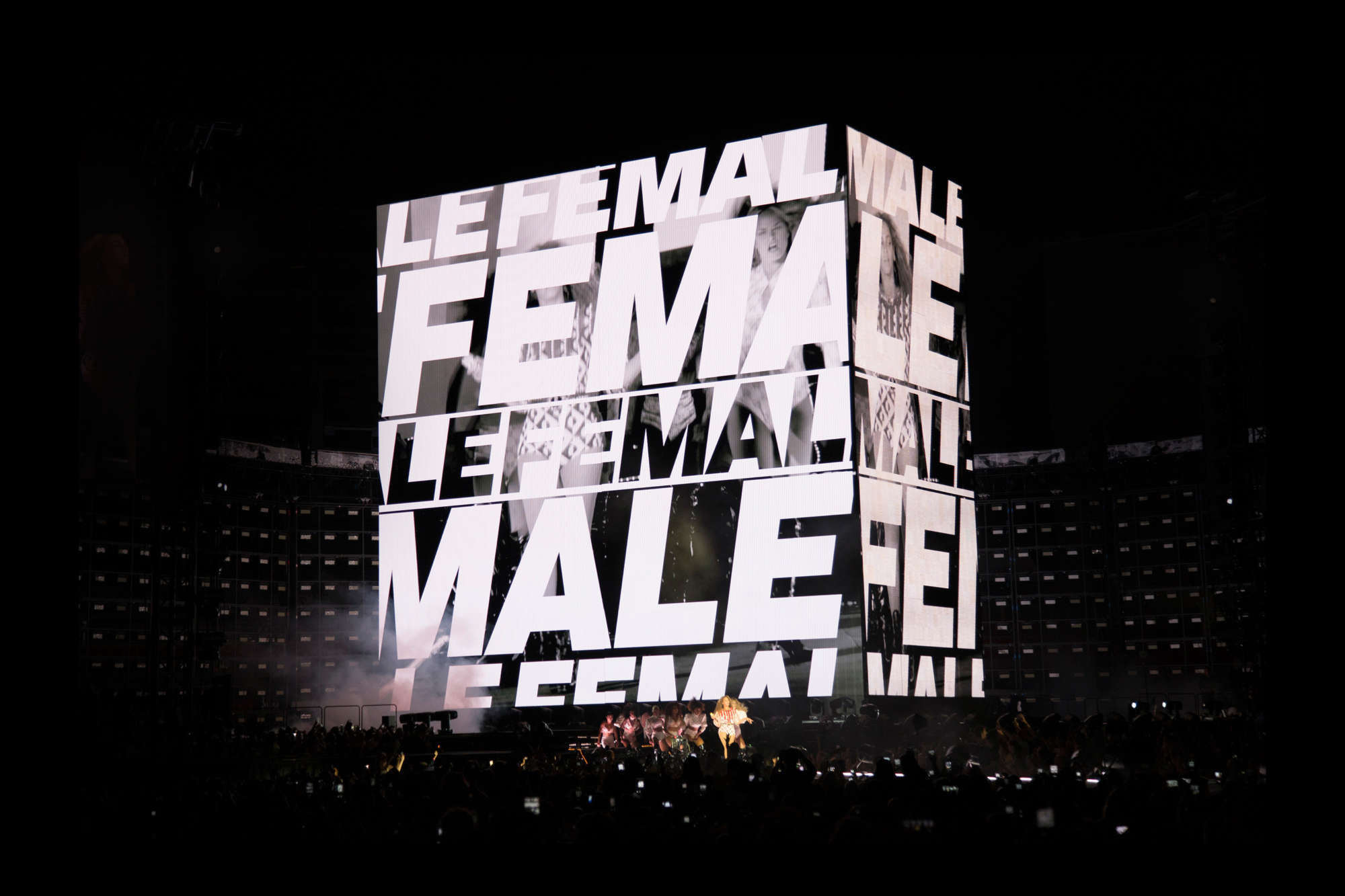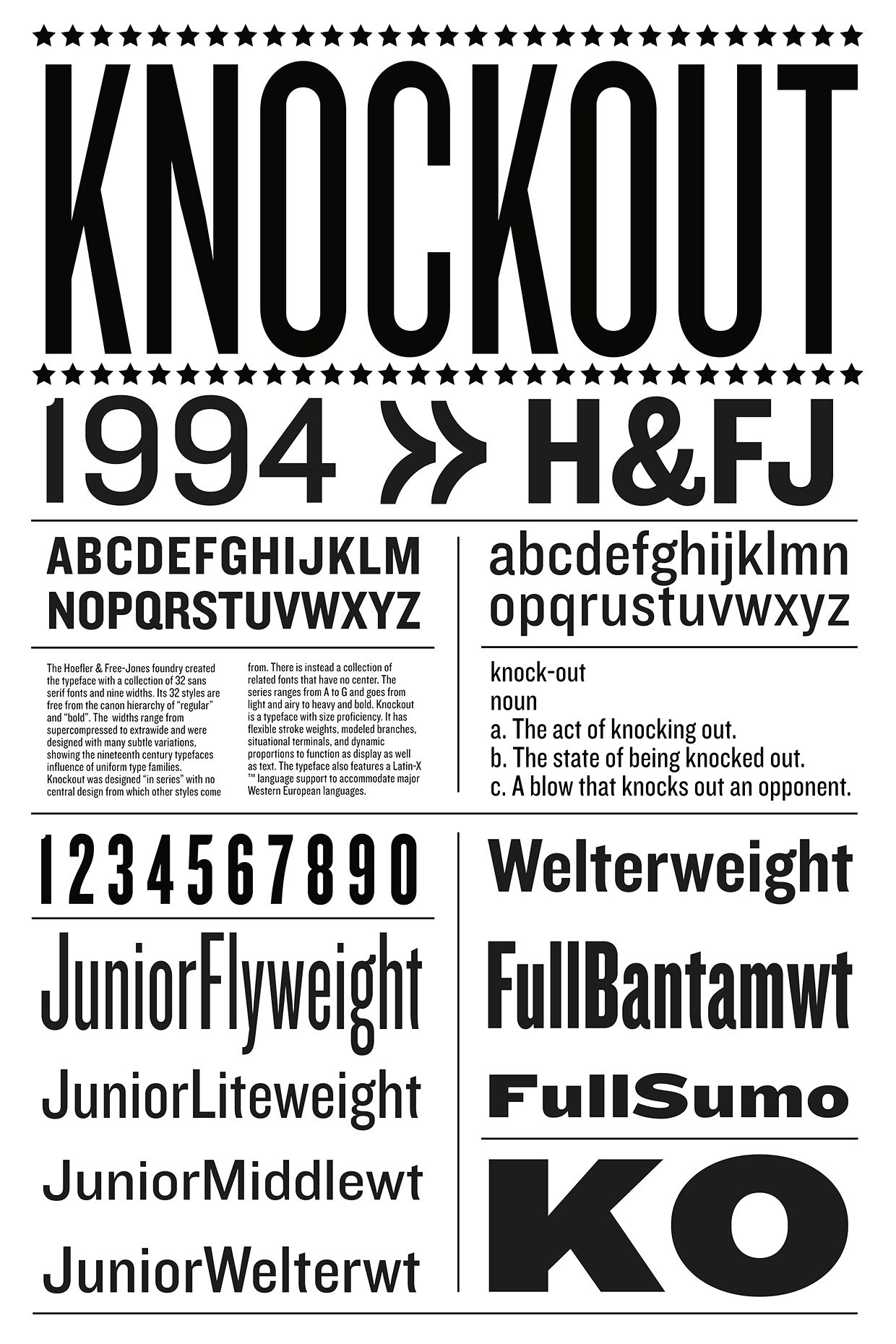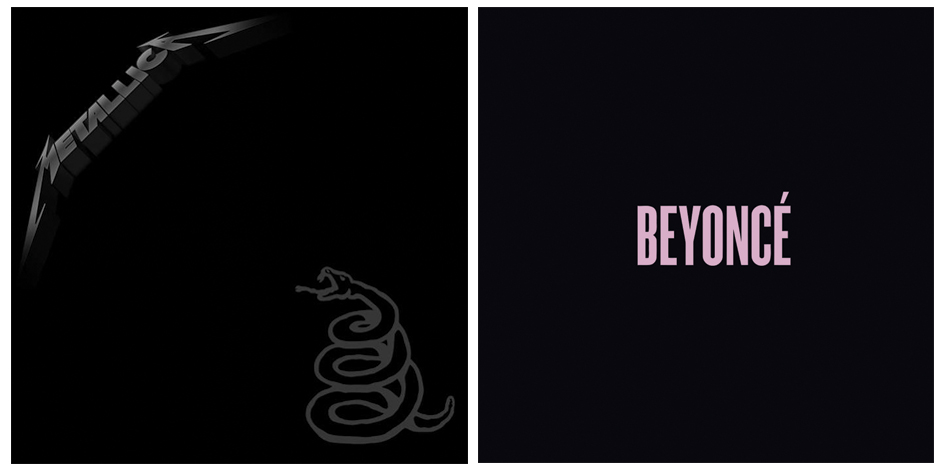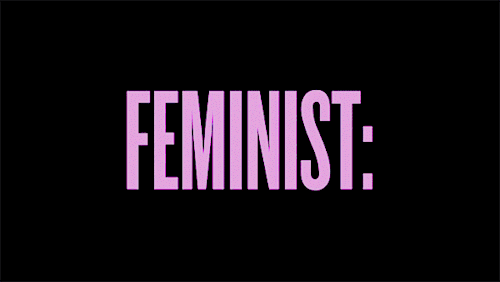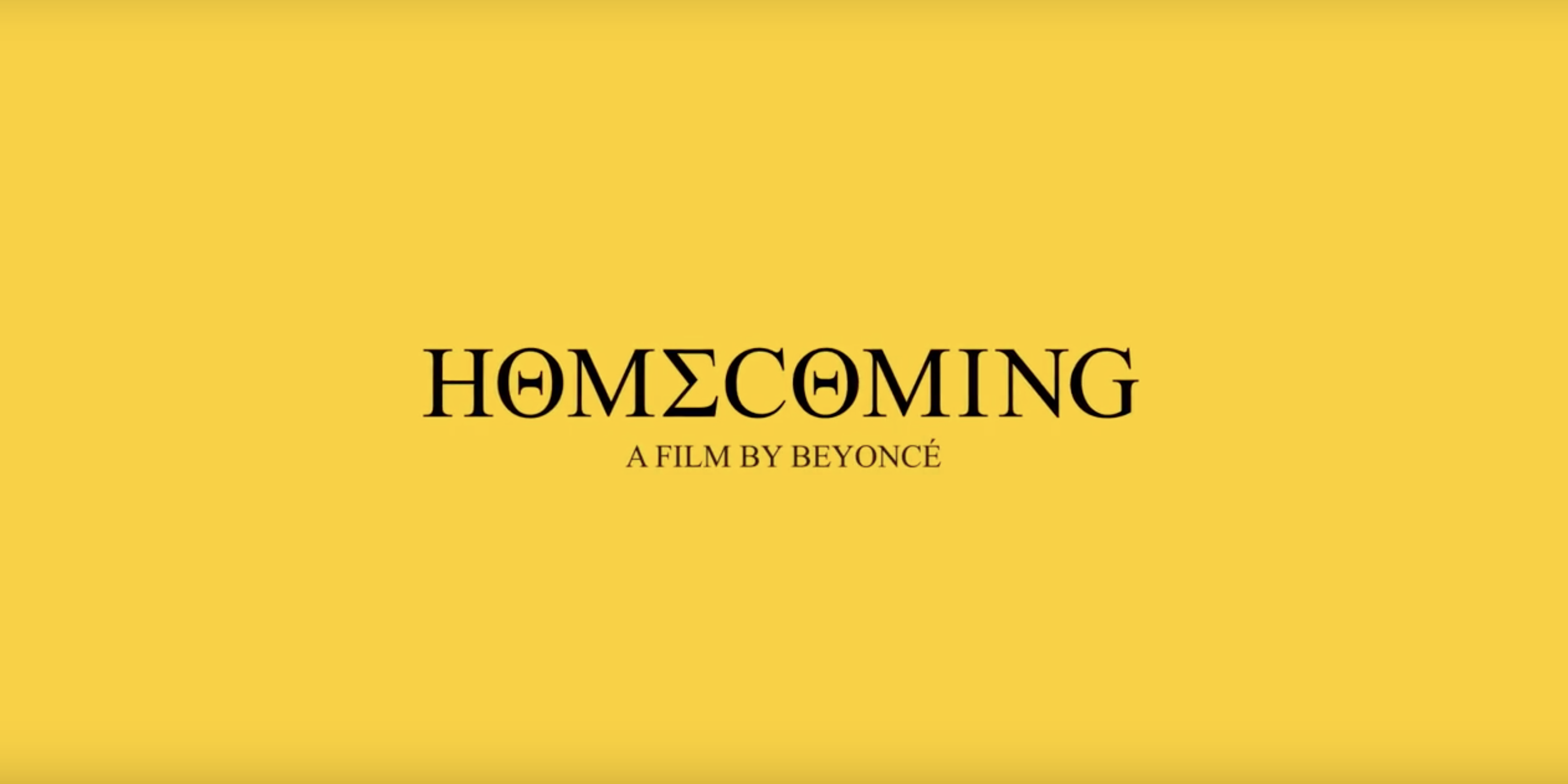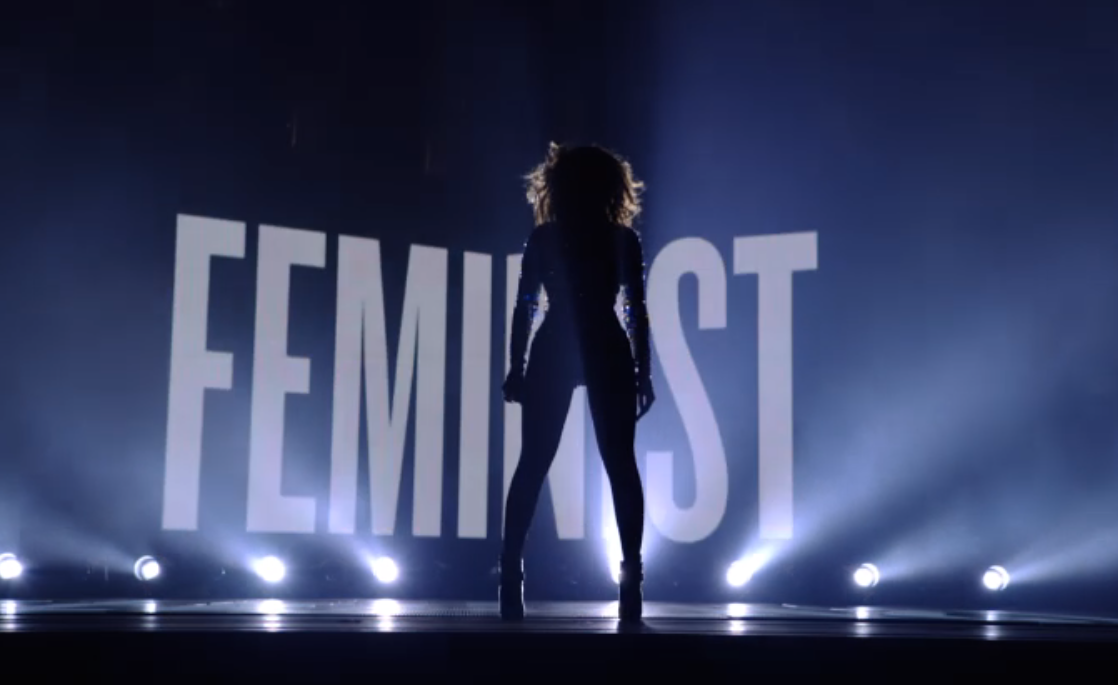
From Knockout to Times New Roman: Beyoncé's fierce typographic branding in full frame
Filled with Queen Bey's energy and the all-time classic visual extravaganza she provides, Netflix released a documentary of Mrs. Carter's cultural evolution aka "Homecoming: A Film by Beyoncé." Featuring behind-the-scenes footage and a look at the rehearsals of Beyonce's epic #Beychella set in Coachella last year HΘMΣCΘMING has every bit of element that made Beyoncé one of the most precious brands out there.
Her performance of April 14, attended by 125,000 festival-goers, was immediately praised, with multiple media outlets describing it as historic, became the most-watched live Coachella performance and the most-watched live performance on YouTube of all time and it was another fine example of Queen Bey's careful consideration when choosing a logo font to brand her cultural empire.
Beyoncé's font choice is a well-established typeface, just like her brand is in the entertainment and fashion industry alike. Times New Roman, a serif typeface designed for use in body text. Commissioned by the British newspaper The Times in 1931 and conceived by Stanley Morison, the artistic advisor to the British branch of the printing equipment company Monotype, in collaboration with Victor Lardent, a lettering artist in the Times' advertising department Times New Roman, although no longer used by The Times, has a legacy of it's own.
One of the most popular and influential typefaces in history and a standard typeface on desktop computers Times New Roman's creation took place through the influence of Stanley Morison of Monotype. Morison was an artistic director at Monotype, historian of printing and informal adviser to The Times. Asked to advise on a redesign, he recommended that they change their text typeface from a spindly and somewhat dated nineteenth-century face to a more robust, solid design, returning to traditions of printing from the eighteenth century and before.
Drawn by Victor Lardent, an artist from the advertising department of The Times, with Morison consulting, before refinement by the Monotype drawing office. The Times stayed with Times New Roman for 40 years, but new production techniques and the format change from broadsheet to tabloid in 2004 have caused it to switch typeface five times from 1972 to 2007. However, all the new fonts have been variants of the original New Roman typeface. Once released for commercial sale, Times New Roman became extremely successful, becoming Monotype's best-selling typeface of all time in metal type.
But this is not the first time Beyoncé invested in the power of typography. Robust, bold and fierce Queen Bey's visual branding speaks volumes. In Beyoncé's albums, visual albums, concerts and shows another typeface takes center stage for good reason. Stylized in all caps "Beyoncé" is Queen Bey's eponymous fifth solo album. Parkwood Entertainment's Todd Tourso was tasked with designing Beyoncé's album cover, which he found difficult considering it was a visual album and thus "inundated with imagery".
“For me I kept thinking about Metallica’s black album. How do you make a very iconic statement in an artist’s career: 'This is something new for me. This is my modern direction.' It was as simple as not having her face on it. Because that’s what everyone would expect, a beauty shot of her. That was the big breakthrough, coming to the conclusion that it doesn’t have to have her on it" he told to The Atlantic.
“We went for a typeface that is kind of masculine but still sexy and loud and is actually derived from fight cards, boxing-ring placards. So it seemed like metaphorically that was a good fit. And then we set it in this kind of grayed-out pink, which was sort of a subversion of femininity".
This “gender-bending” typeface is Knockout. A type family with a “sweeping collection of 32 sans serifs that defies the Modernist canon, in order to reclaim one of typography’s great natural wildernesses: the American sans serif” notes Hoefler&Co.
“For more than a century before Helvetica, the sans serif landscape was dominated by unrelated designs. Gothic woodtypes in a dazzling array of proportions lived comfortably alongside anonymous foundry types, each design’s integrity the product of its autonomy. Because none of these faces were intended to relate to one another, none of their design characteristics were beholden to any external constraints: what worked for a supercondensed boldface need only work for that design, not also for the extrawide light face whose design afforded different possibilities and faced different challenges. This sort of 'situational' approach to type design allowed for more varied and interesting designs, and it’s this approach that Knockout celebrates”
“With the functional benefits of a family that’s well-organized, and the visual appeal of styles that are individually designed, Knockout’s nine-width, four-weight family offers a range of voices that’s impossible to achieve with even the best Modernist sans serifs” writes the type foundry of the typeface which brought the letterforms in the most crowded stadiums and venues ever.
Another fine example of Mrs. Carter's devotion to the power of the letterforms was conceived by Beyoncé's dream team of creatives, Ed Burke, Todd Tourso and Es Delvin who paid tribute to iconic visual artists of our days during her Formation tour.
Homecoming, the film is streaming online on Netflix. In addition to the documentary, Beyoncé has also released a new live album featuring 40 tracks including classics like “Crazy in Love”, “Baby Boy”, and “Say My Name”, as well as a number of Destiny’s Child hits. Drop mic!